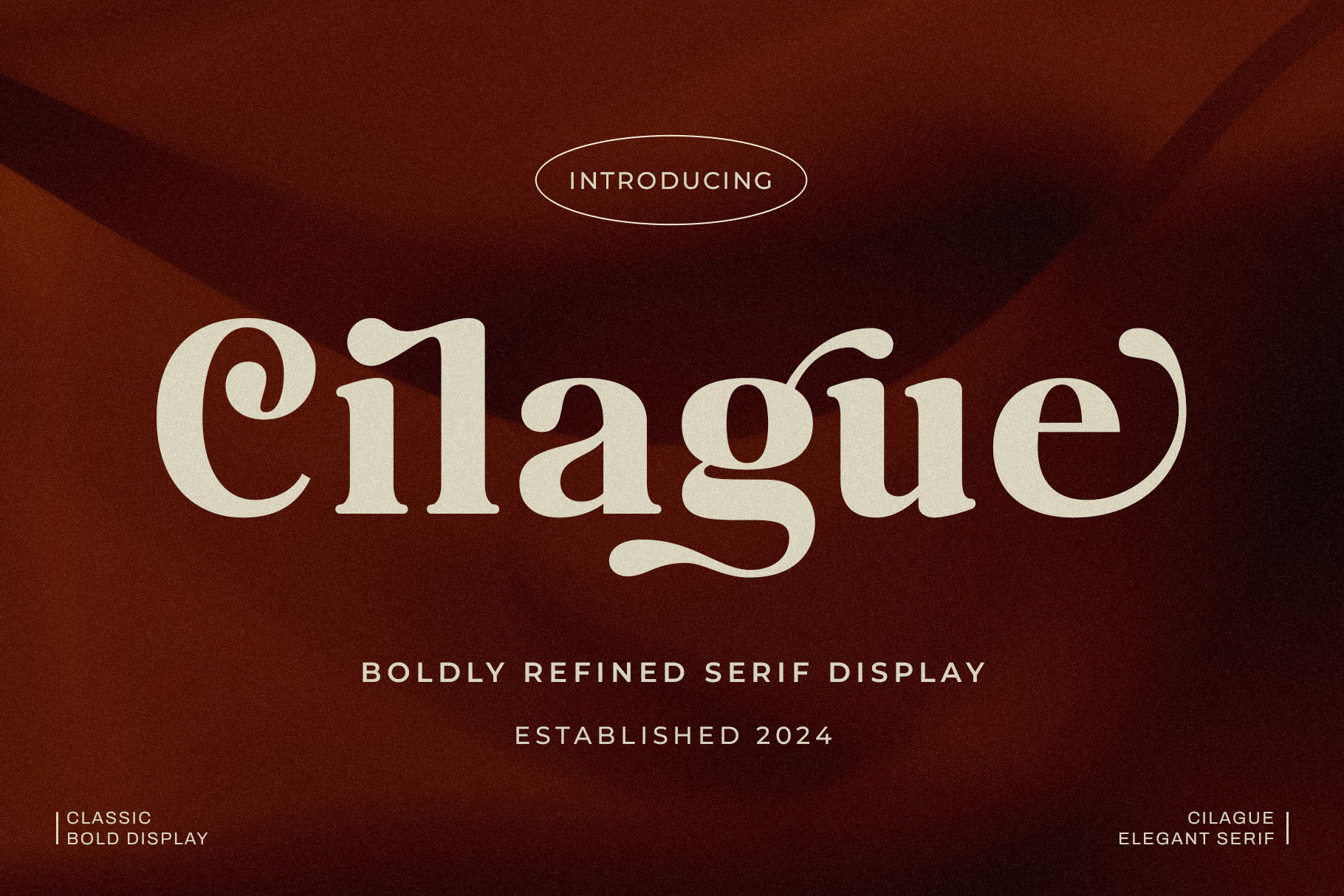
Cilague - Elegant Display Serif Font
Introducing our new "Cilague" unique and modern serif font with elegant style this is perfect for branding, logos, invitation, magazines, product packaging and more.